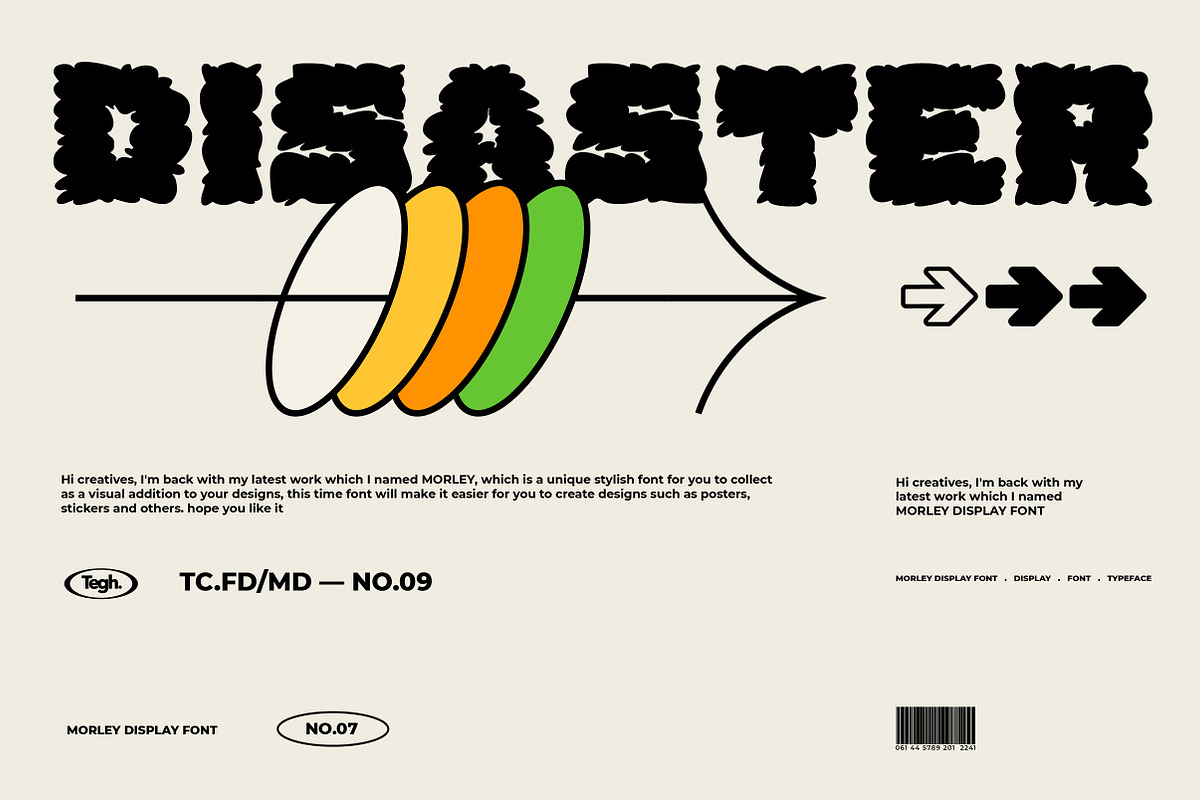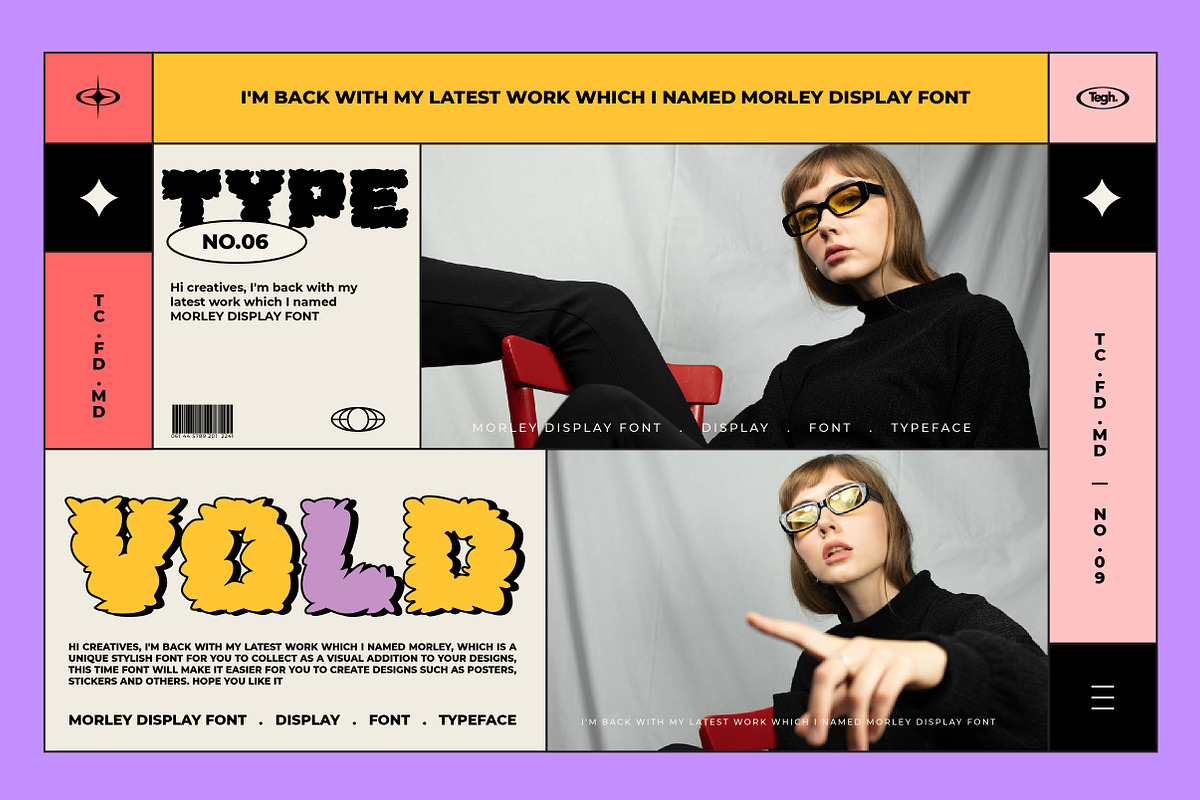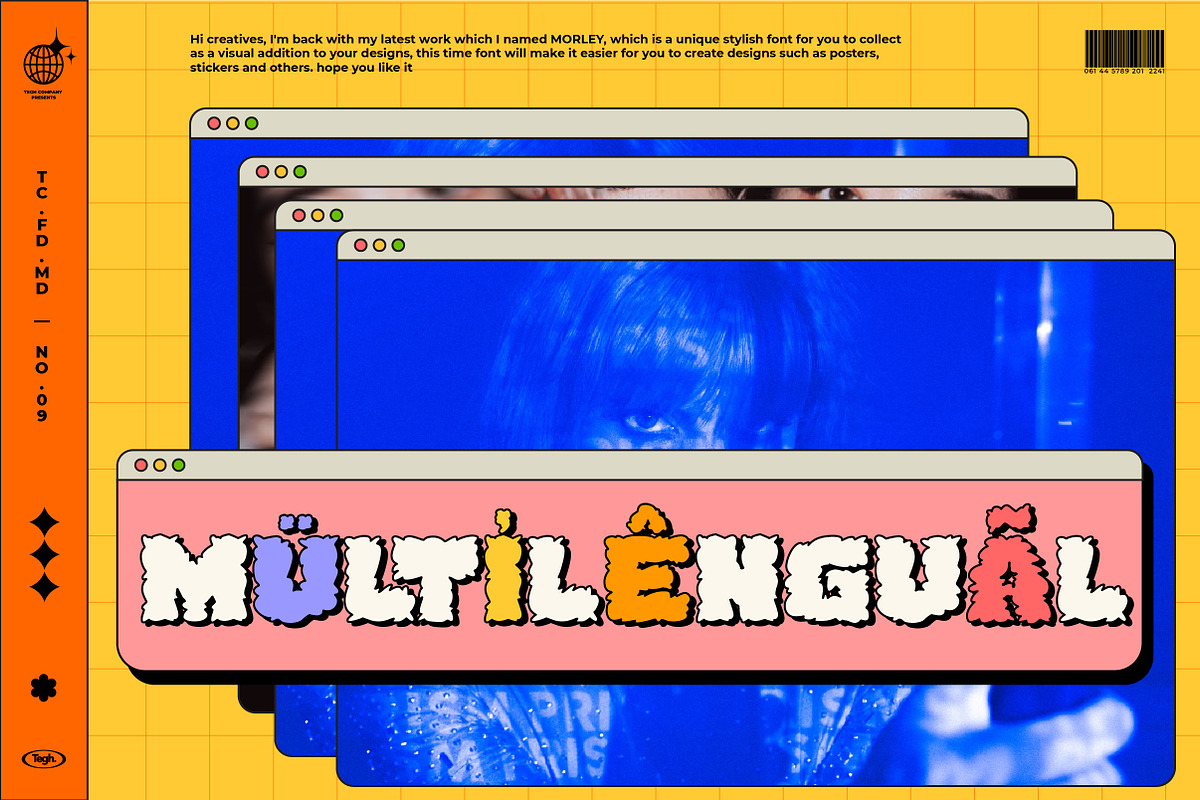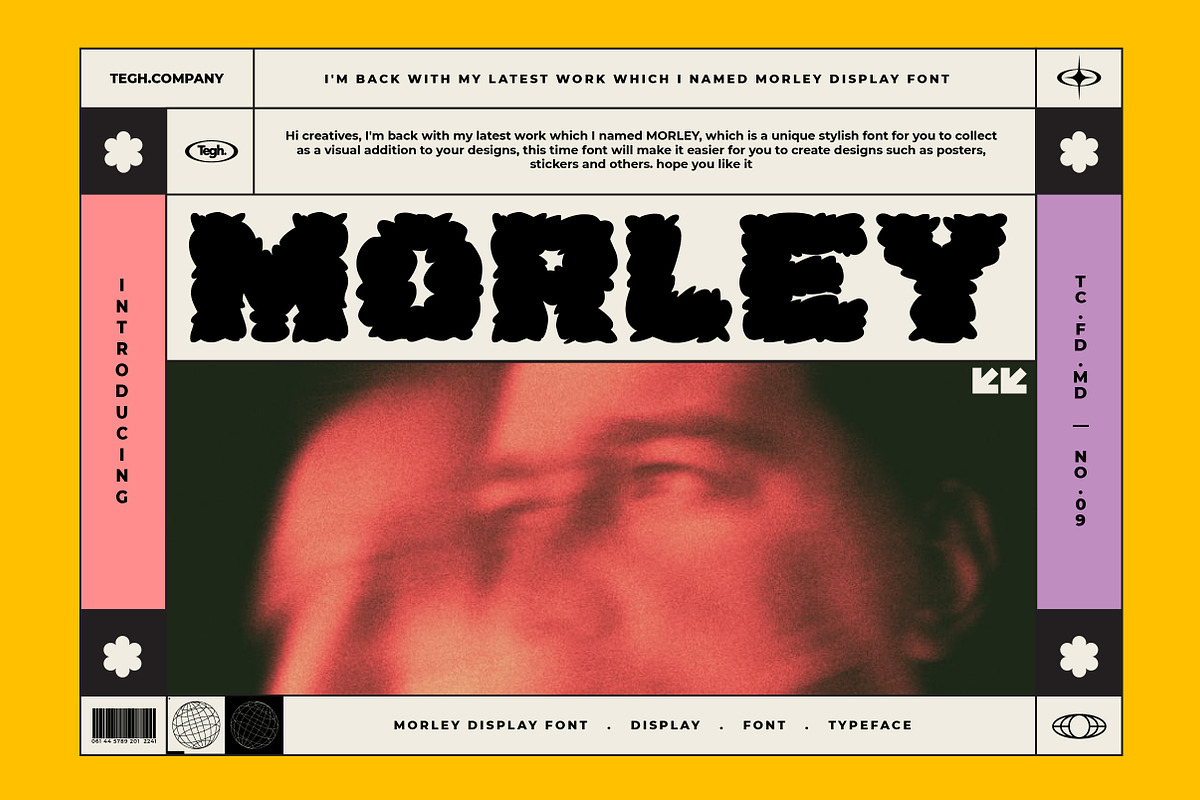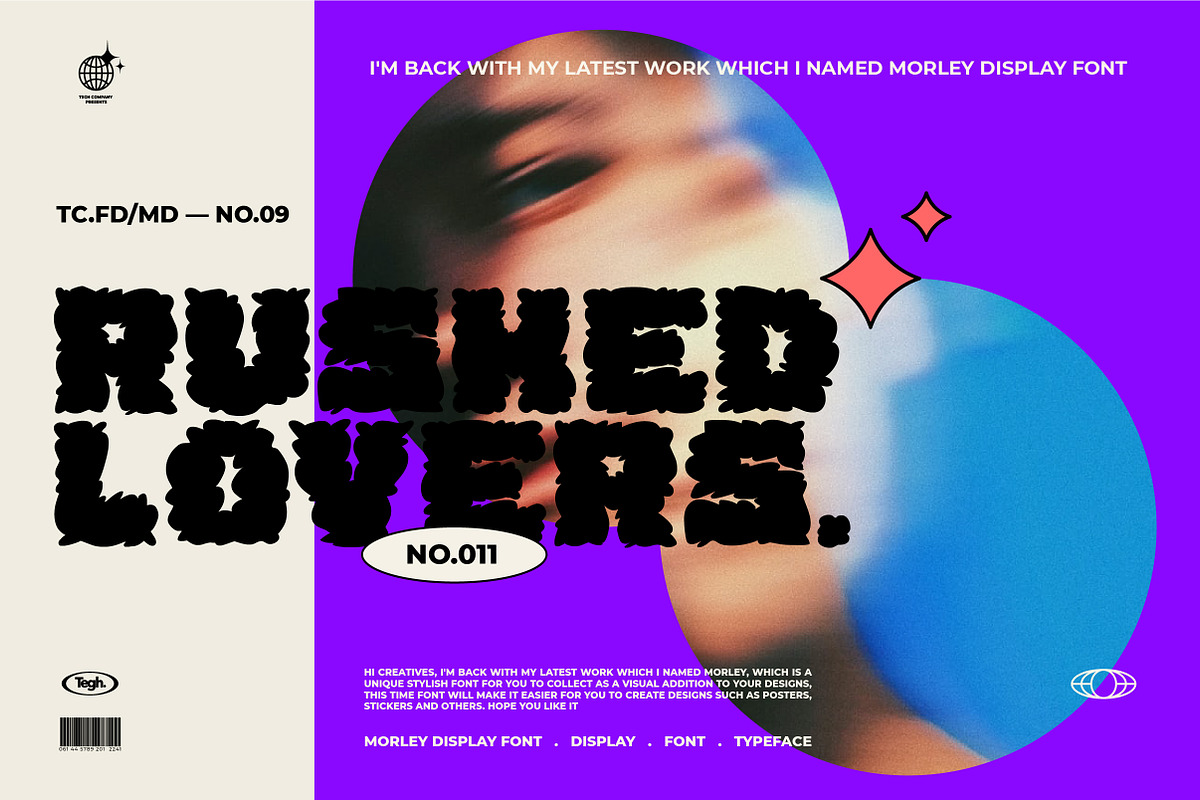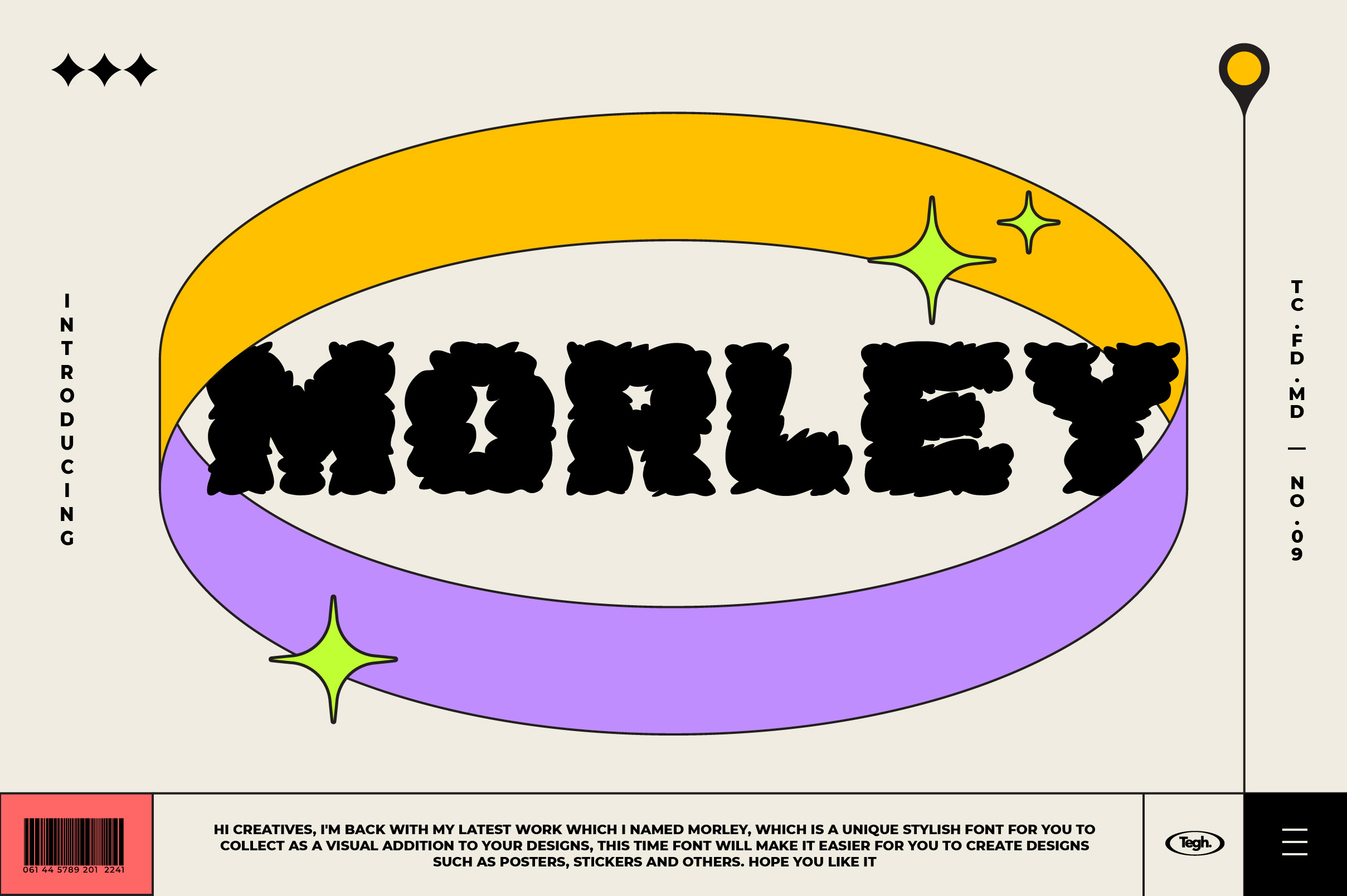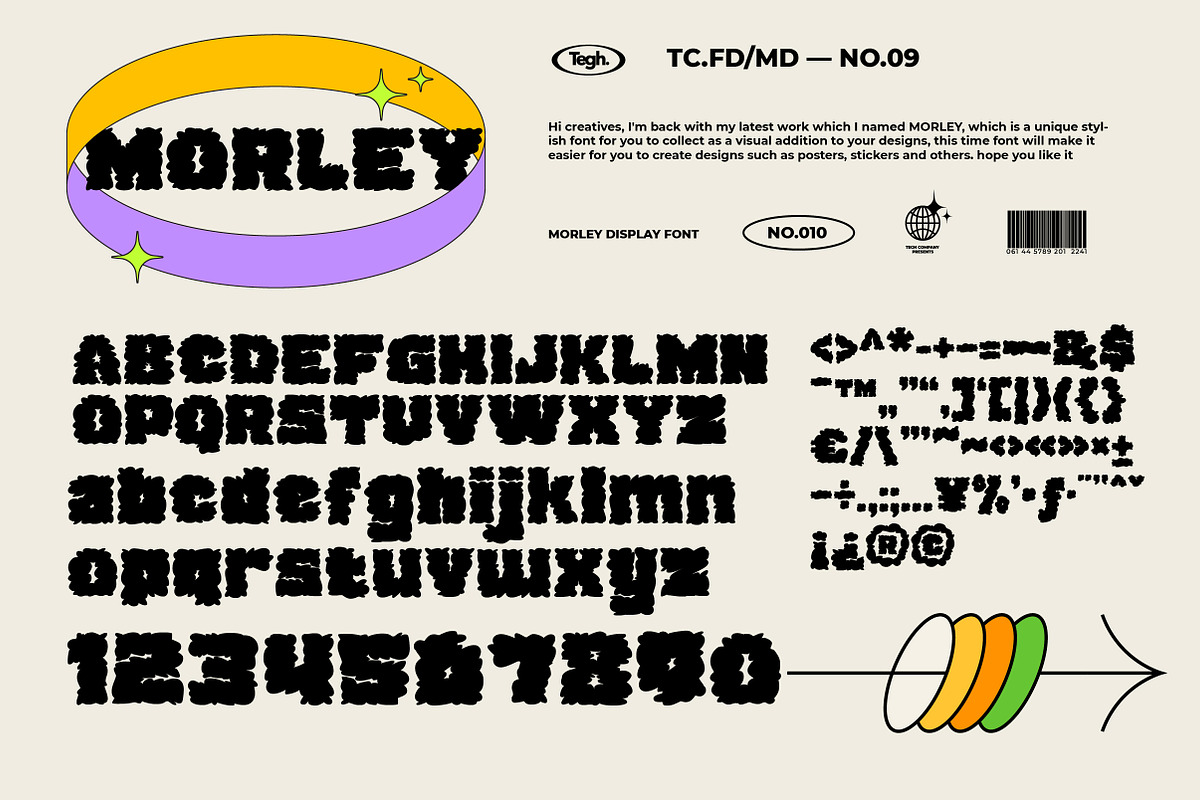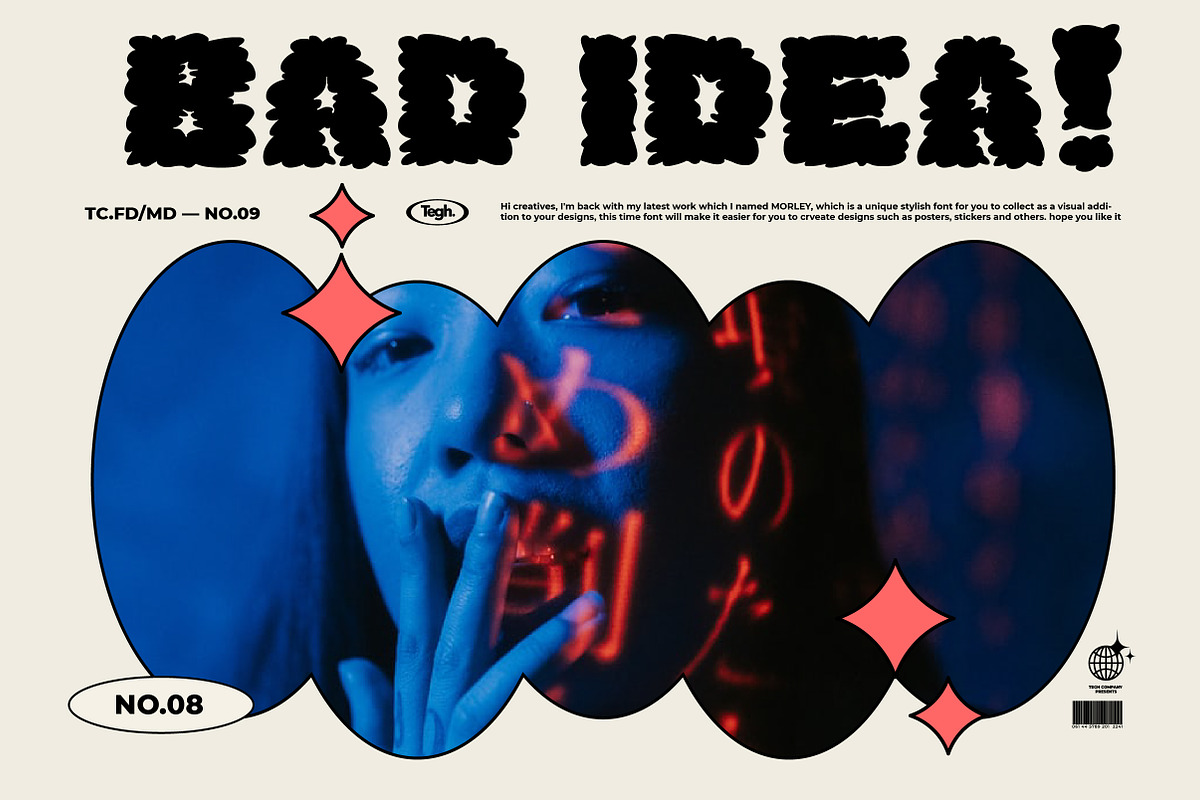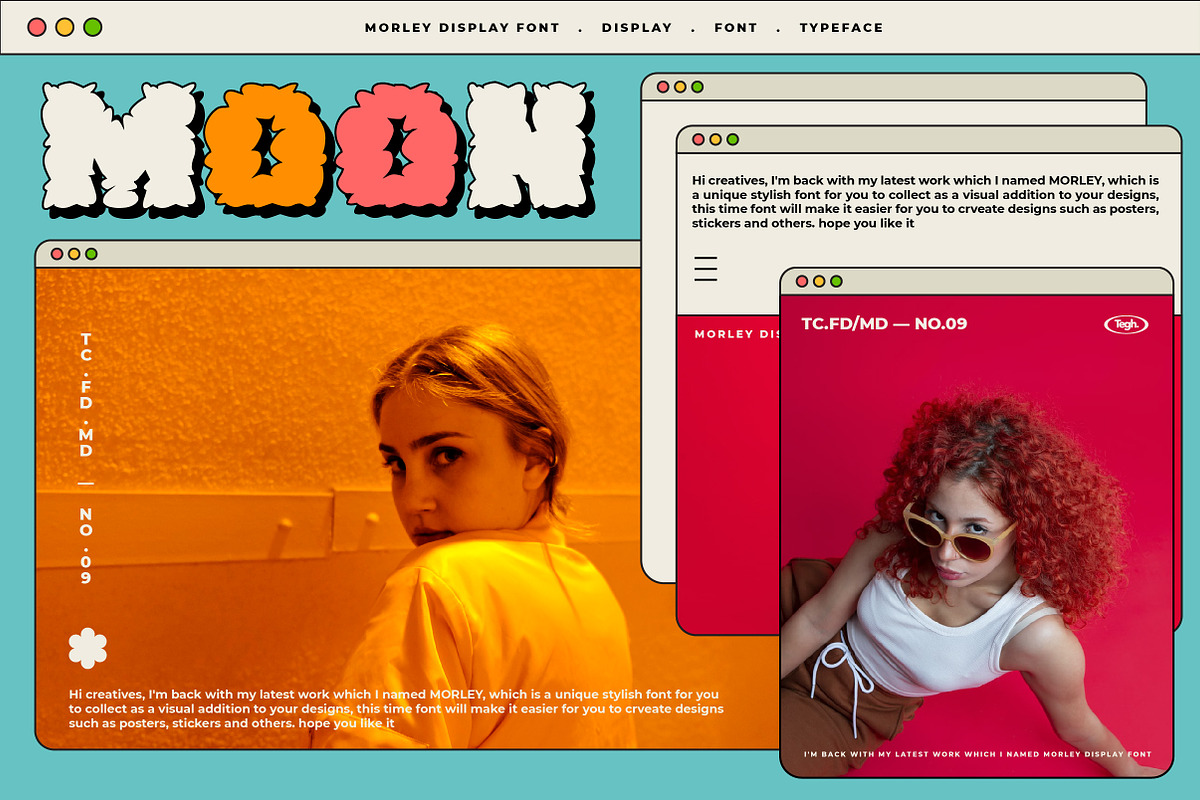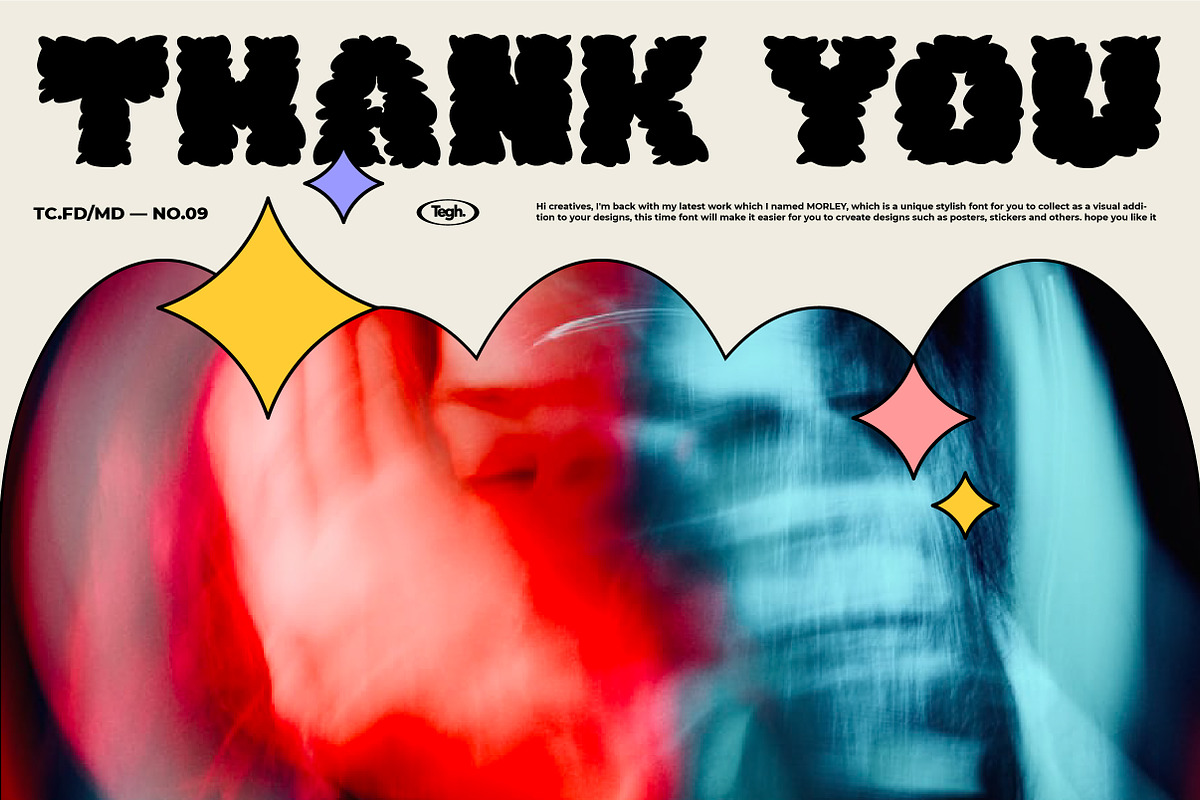
Morley display font
Hi creatives, I'm back with my latest work which I named MORLEY, which is a unique stylish font for you to collect as a visual addition to your designs, this time font will make it easier for you to create designs such as posters, stickers and others. hope you like it